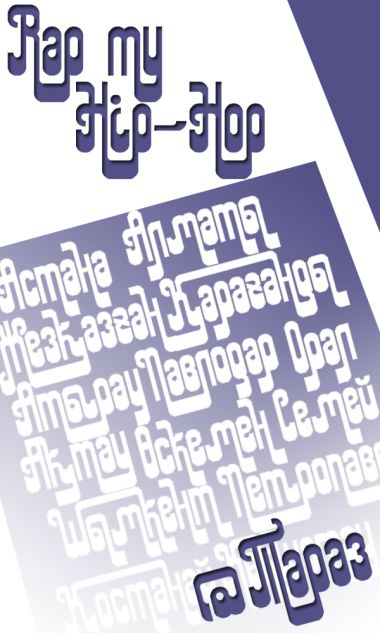
It looked good when I typed Rap & Hip-Hop :)
a little adjustment for the name: rap -> "rep"
@regular_one: Yeap, it would make more sense that way, but I'll leave it like this, I don't think it's a big deal ;)
P.S. Is "Per Mille (‰)" sign available at fontstructor?
Is the "per mille" (‰) character available in FontStruct? Yes.
Using the Unicode set, you can make a complete Windows-1257 / CP-1252 font with FontStruct.
Love the flow of this design - and the clever linkage of ascenders and descenders. 10/10
Goatmeal, thanks for the useful information, already added ‰.
Clever usage of swashes. 10/10
Great work. Fun all over. Consider making a large set of ligatures for all possible connections. 10/10
Nice - for some reasons makes be think of the 60s - Beatles, Hendrix, Clapton, etc
This just came up under my welcome screen. I had missed it when it was published, sorry architaraz. I think it belongs in the 1960s maybe1970s set, and also into Art Nouveau. Very attractive.
This has been updated with technical improvements.